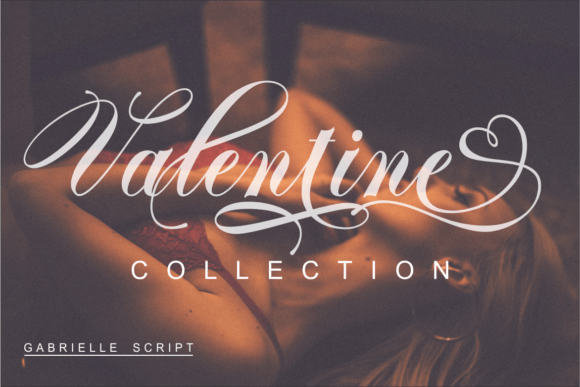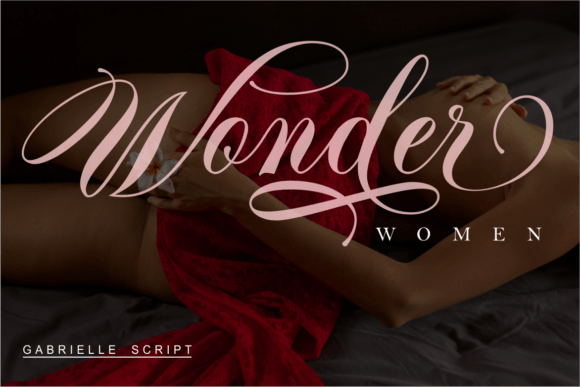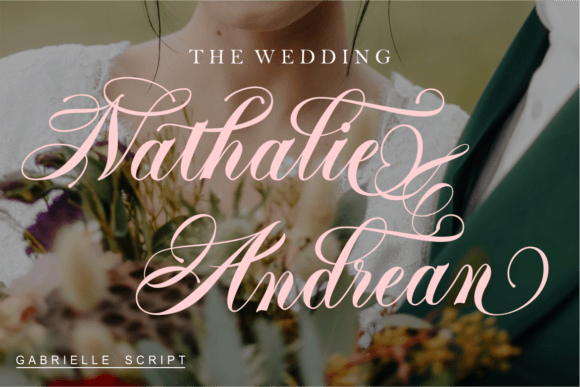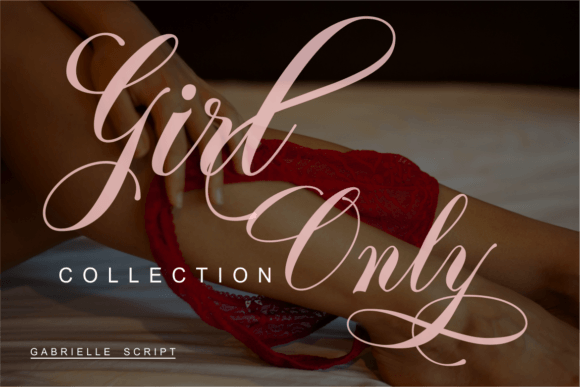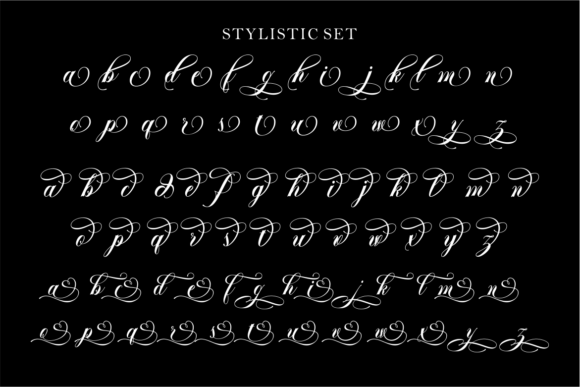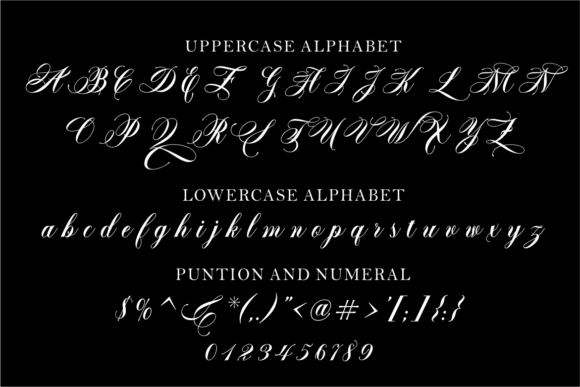
Introducing Gabrielle Font: The Ultimate Calligraphy Script Font for Creative Design Projects
Are you a designer or crafter looking for a font that exudes romance and elegance? Look no further than the Gabrielle Font, a stunning calligraphy script font that is perfect for adding a touch of sophistication to your most creative design projects. With its exquisite flair and beautiful swashes, this font is sure to take your designs to the next level.
What is Gabrielle Font?
Gabrielle Font is a carefully crafted calligraphy script font that is designed to bring a touch of romance and whimsy to your designs. With its flowing lines and delicate curves, this font is perfect for creating beautiful wedding invitations, elegant branding materials, and stunning digital graphics. Whether you’re a professional designer or a crafty DIY enthusiast, Gabrielle Font is the perfect choice for anyone looking to add a touch of elegance to their designs.
Key Features of Gabrielle Font
So what sets Gabrielle Font apart from other fonts on the market? Here are just a few of its key features:
- PUA Encoding: Gabrielle Font is PUA (Private Use Area) encoded, which means that you can access all of the glyphs and swashes with ease. This makes it simple to create beautiful, one-of-a-kind designs that showcase your creativity.
- Romantic and Exquisite Flair: With its delicate curves and flowing lines, Gabrielle Font has a romantic and exquisite flair that is perfect for creating elegant designs.
- Calligraphy Script Style: This font features a beautiful calligraphy script style that is perfect for creating wedding invitations, branding materials, and other designs that require a touch of elegance.
- Swashes and Glyphs: Gabrielle Font comes with a range of swashes and glyphs that you can use to add a touch of personality to your designs.
Why Choose Gabrielle Font?
So why should you choose Gabrielle Font for your next design project? Here are just a few reasons:
- Unique and Elegant Designs: With Gabrielle Font, you can create unique and elegant designs that showcase your creativity and style.
- Easy to Use: This font is simple to use, even if you’re new to design. The PUA encoding makes it easy to access all of the glyphs and swashes, and the font is compatible with a range of design software.
- Versatile: Gabrielle Font is versatile and can be used for a range of design projects, from wedding invitations to branding materials and digital graphics.
- High-Quality: This font is high-quality and comes with a range of features that make it perfect for professional designers and crafty DIY enthusiasts.
Design Ideas Using Gabrielle Font
So what can you create with Gabrielle Font? Here are just a few design ideas to get you started:
- Wedding Invitations: Create beautiful wedding invitations that showcase your couple’s style and elegance.
- Branding Materials: Use Gabrielle Font to create elegant branding materials, such as logos and business cards.
- Digital Graphics: Create stunning digital graphics, such as social media graphics and blog headers, that showcase your creativity and style.
- Stationery: Design beautiful stationery, such as letterheads and notecards, that feature Gabrielle Font.